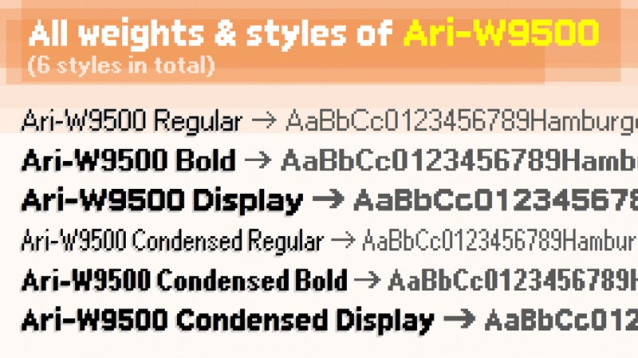
Ari-W9500 Font
Ari-W9500 Font – This is basically pixelated Arial. Nothing interesting, really. The font is heavily inspired by the pixelated font used in Microsoft’s Windows 95. The project was originally meant to be an improved and revamped version of the popular W95FA pixel font.
With more than 1600 glyphs, the font can support a wide range of languages (primarily supports Latin, Greek and Cyrillic).
The alternative glyphs of all the font styles included in the family are stored in the “Braille Patterns” Unicode block.